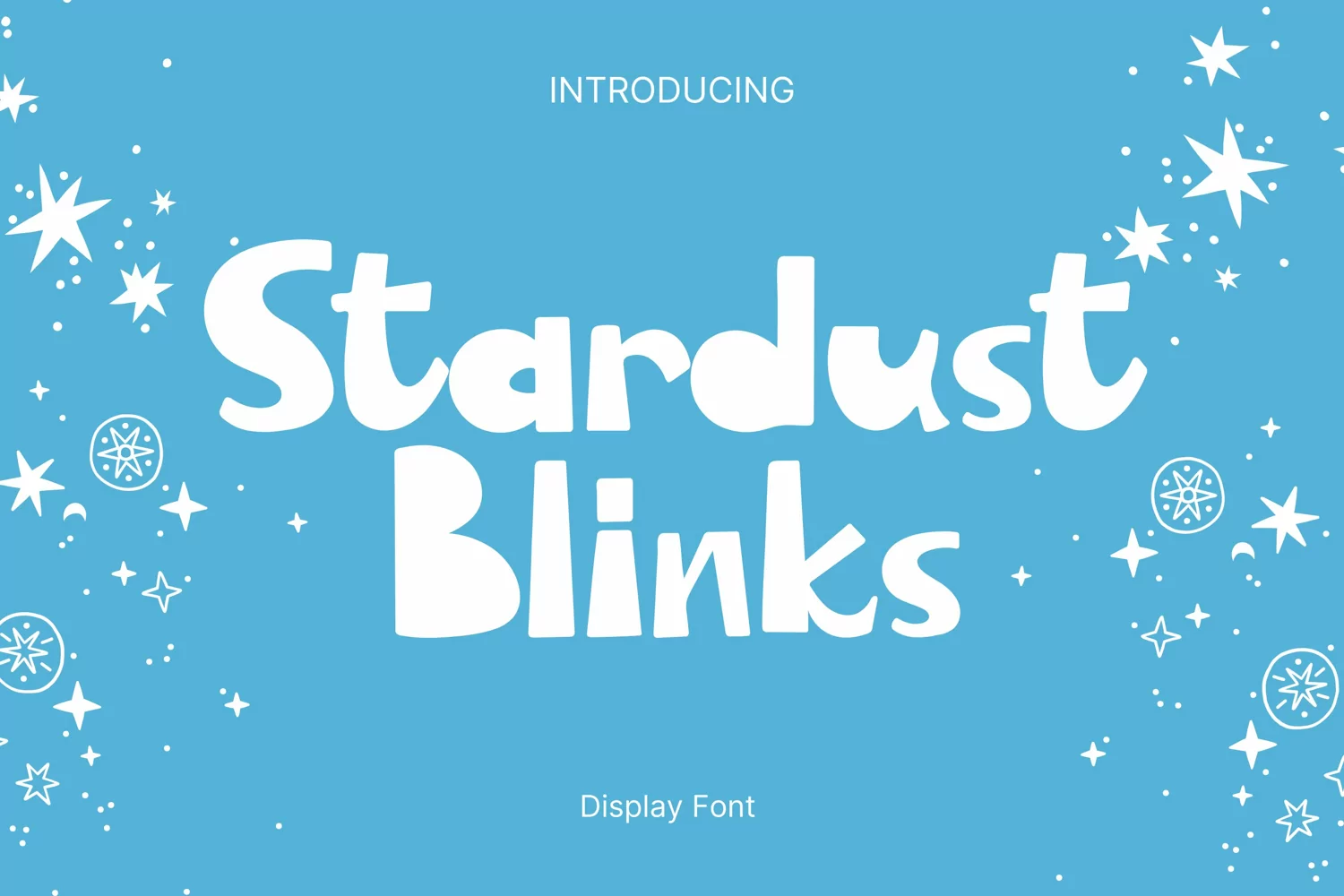
Stardust Blinks Style
StardustBlinks
Stardust Blinks Style is a whimsical and clean handwritten font. It can easily be matched to an incredibly large set of projects, so add it to your creative ideas and notice how it makes them stand out!